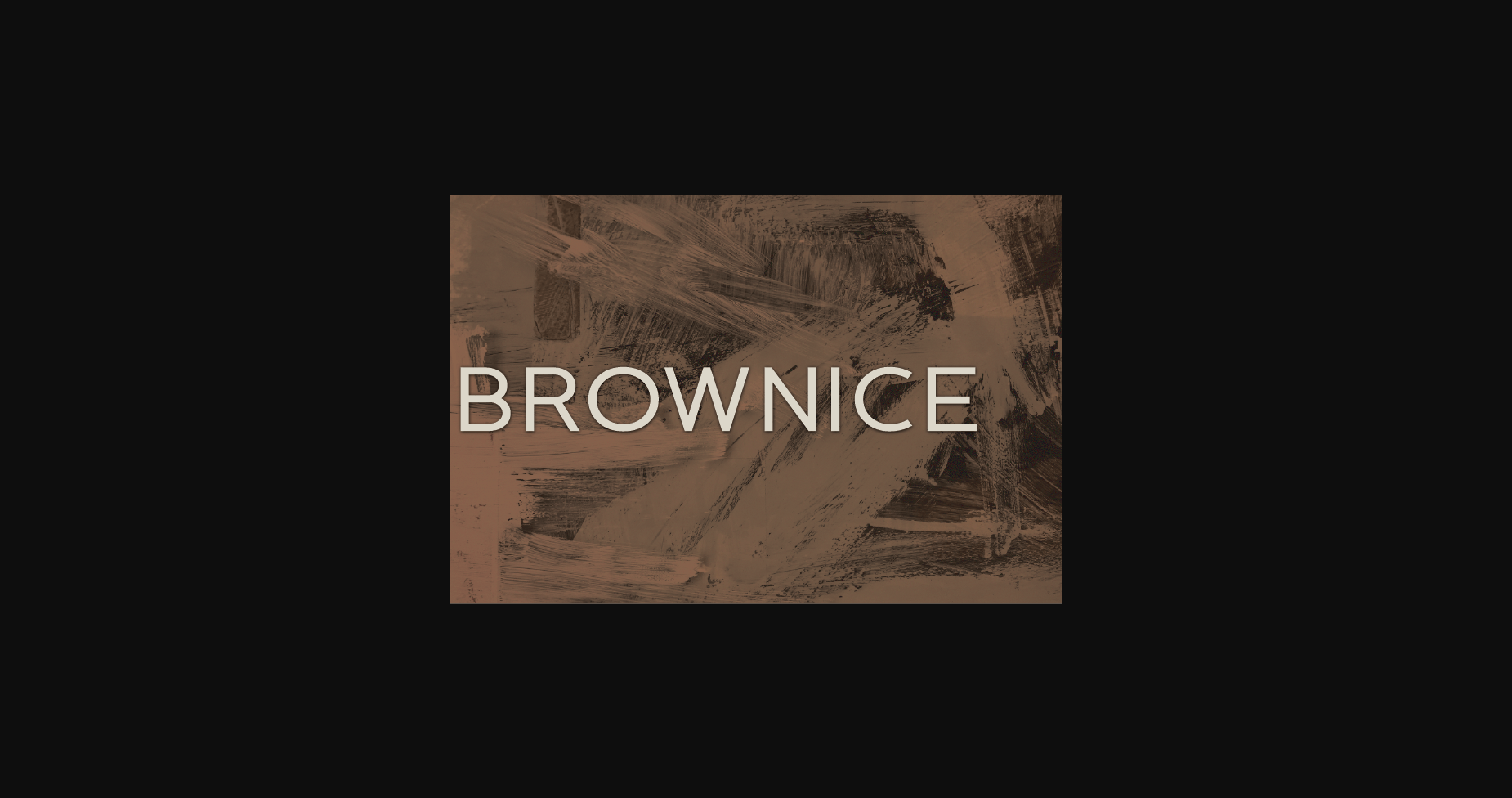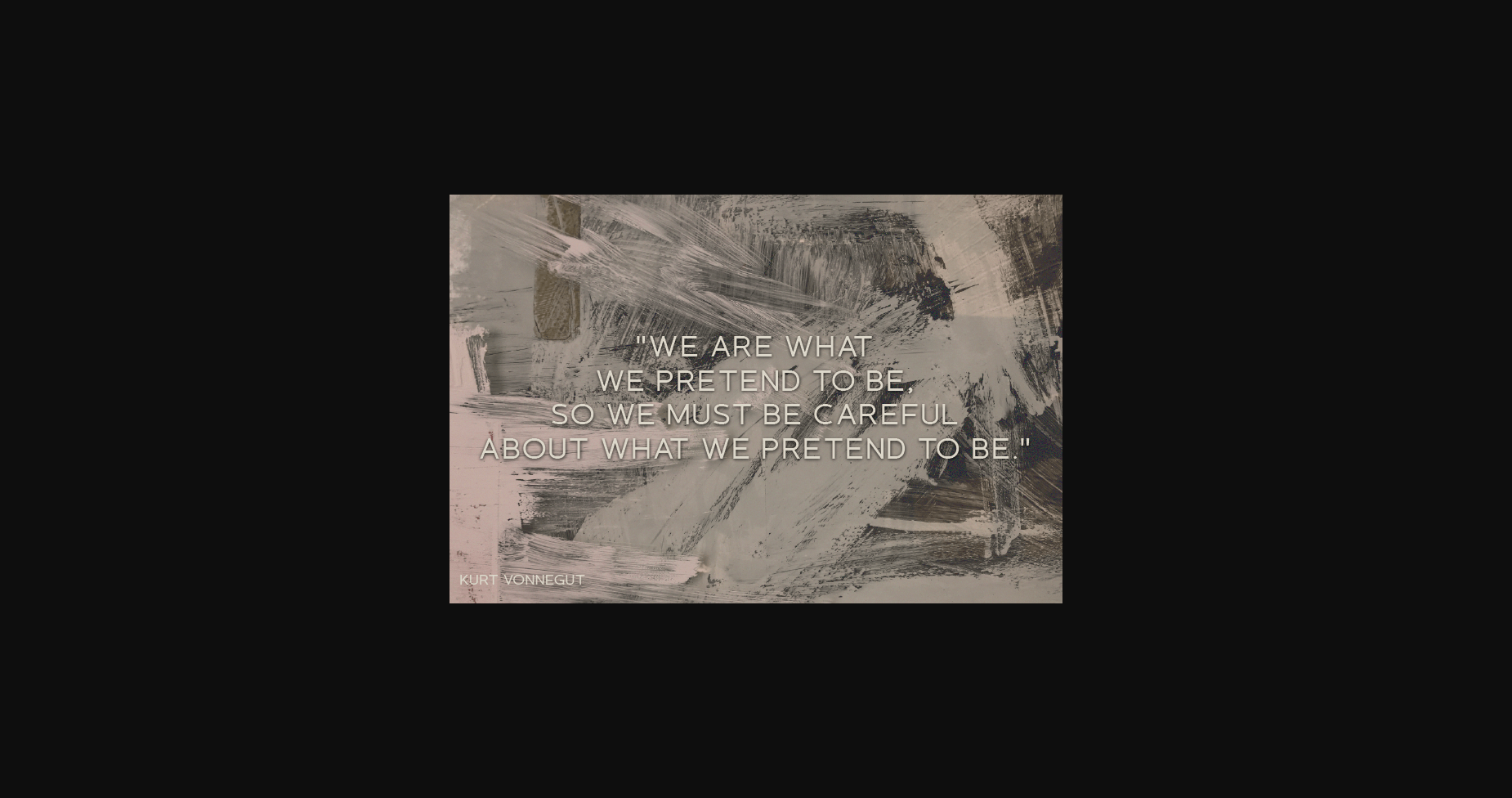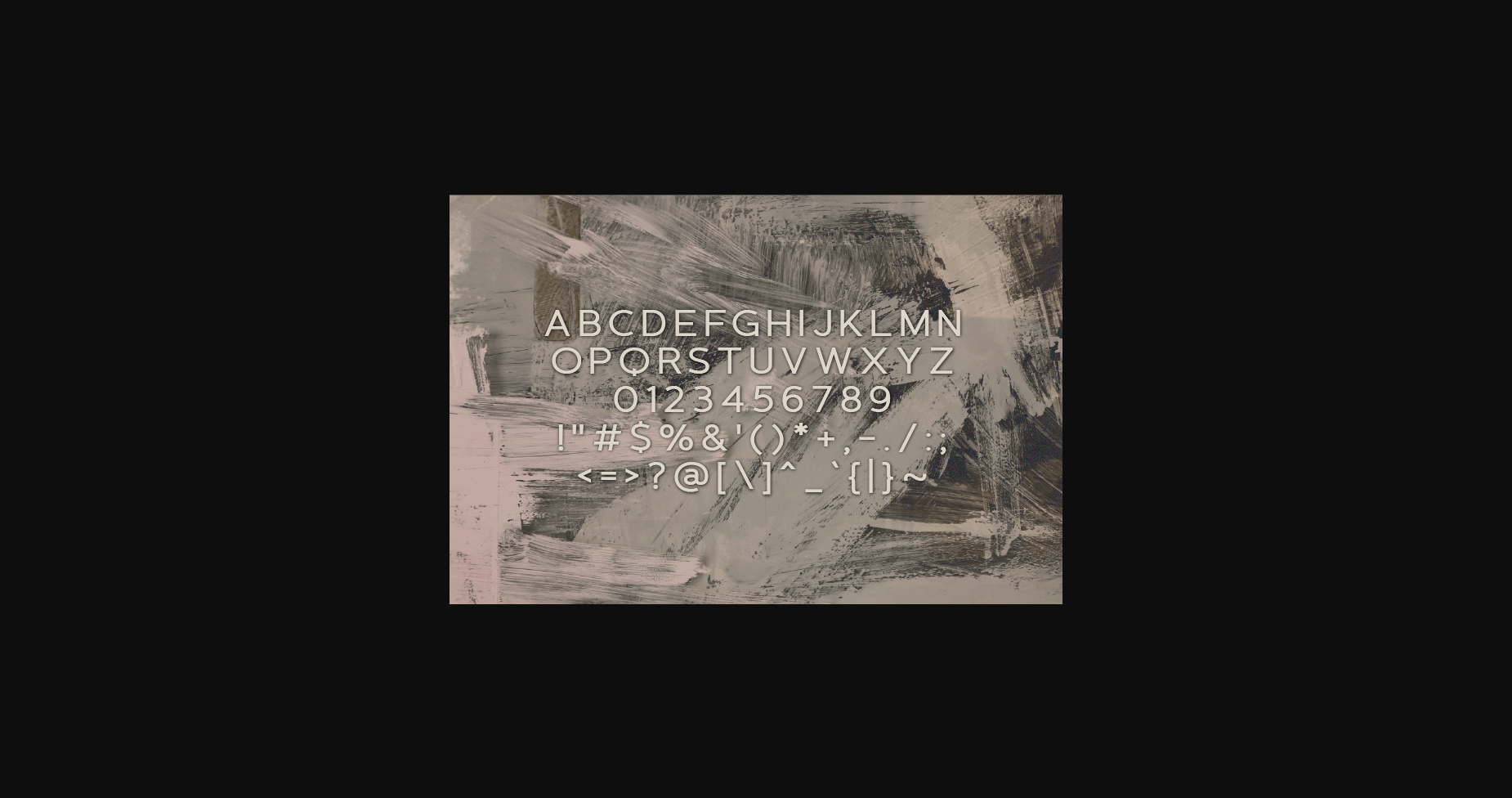
About Brownice Font
Introducing Brownice, a modern, classy sans serif typeface.
An extremely versatile font, perfect for logos, weddings, invitations, quotes, advertisements, print, magazines, and more!